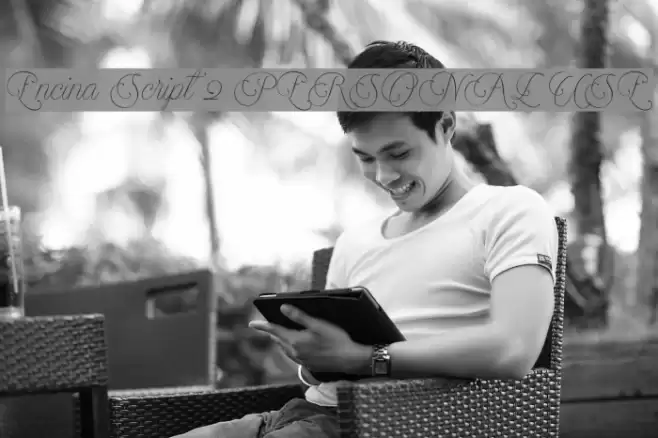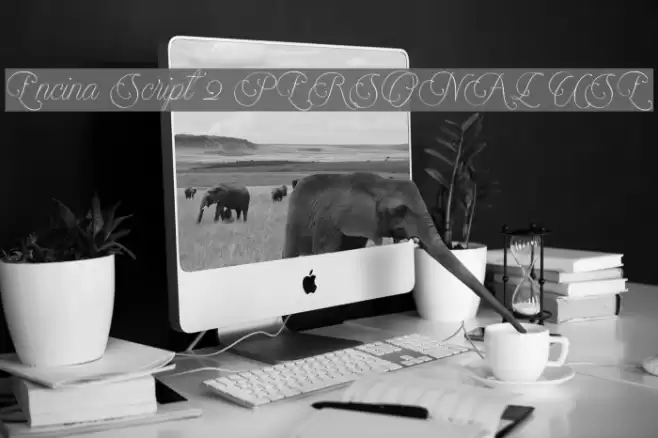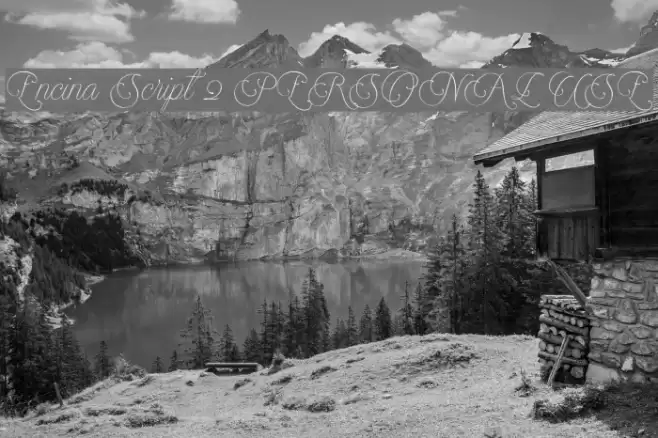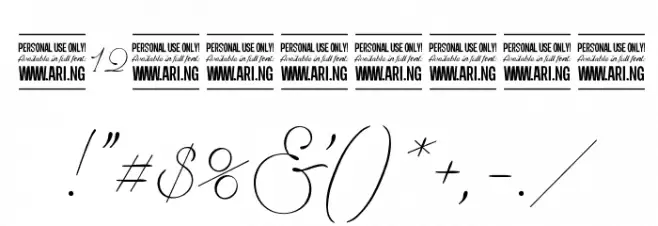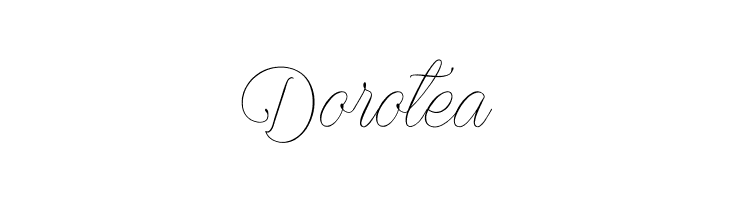
Encina Script 2 PERSONAL USE Font
Encina Script 2 PERSONAL USE Description
This elegant script font features flowing, interconnected letters with a classic, sophisticated style. The uppercase characters are adorned with intricate loops and flourishes, giving them a decorative appearance. The lowercase letters maintain a smooth, cursive flow, enhancing readability while retaining an artistic flair. The numerals and special characters are designed to complement the overall aesthetic, with a consistent stroke width that adds to the font's harmonious look. This font is ideal for projects that require a touch of elegance and refinement.
An elegant script font with flowing, interconnected letters and decorative flourishes from Script fonts.
- Proposed Projects: Ideal for wedding invitations, elegant branding, greeting cards, and upscale packaging.
- Overall Style: Classic
- Use Case: Logos, Invitations, Decorative text